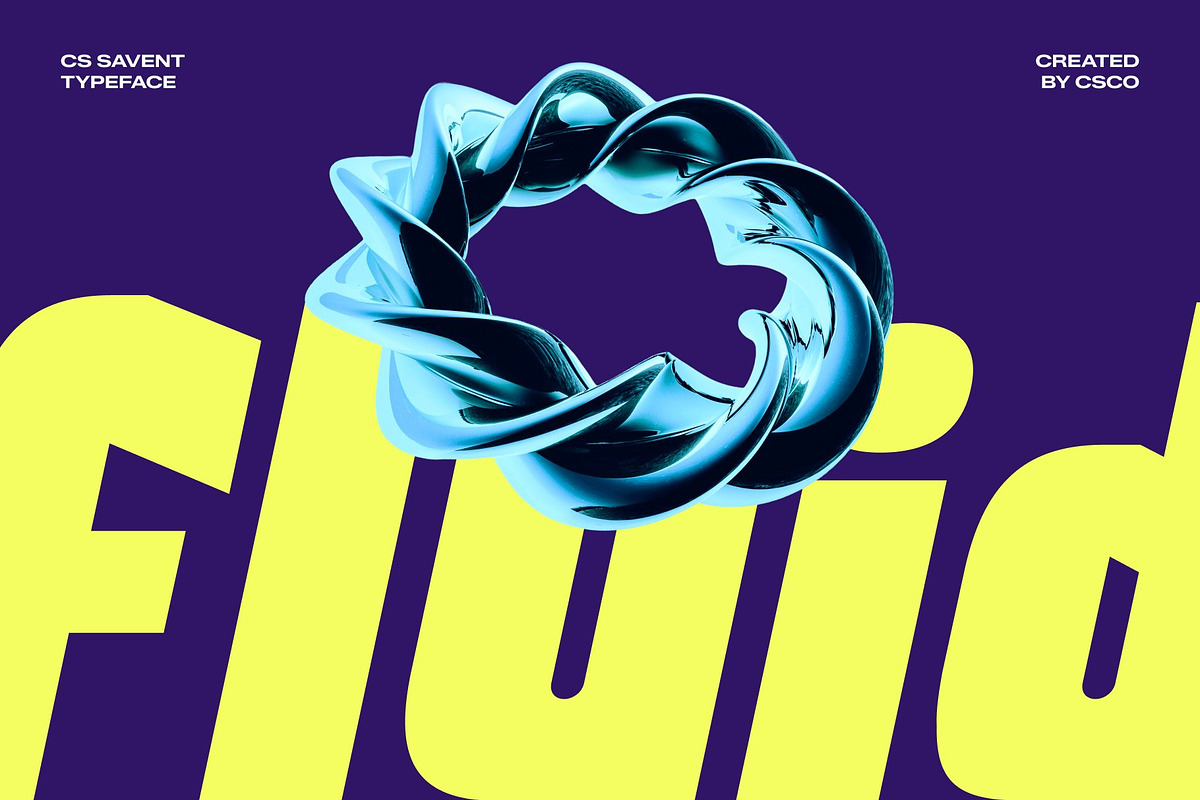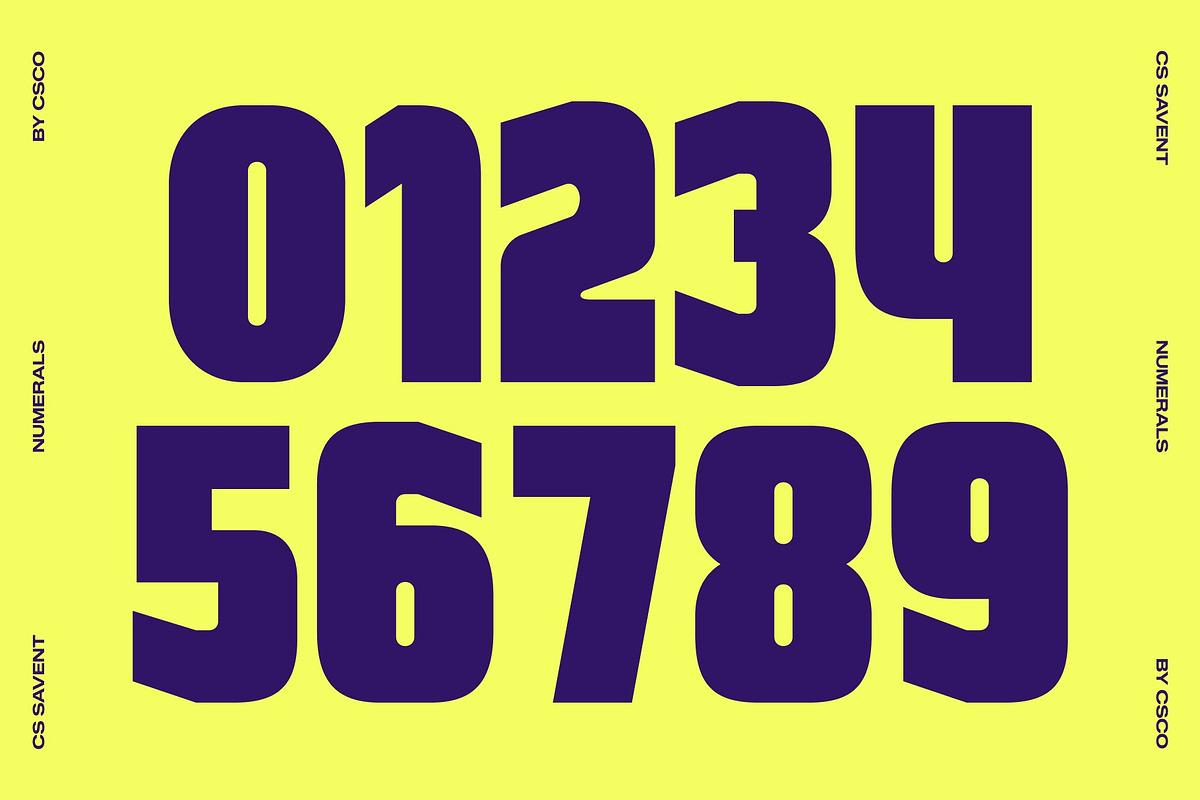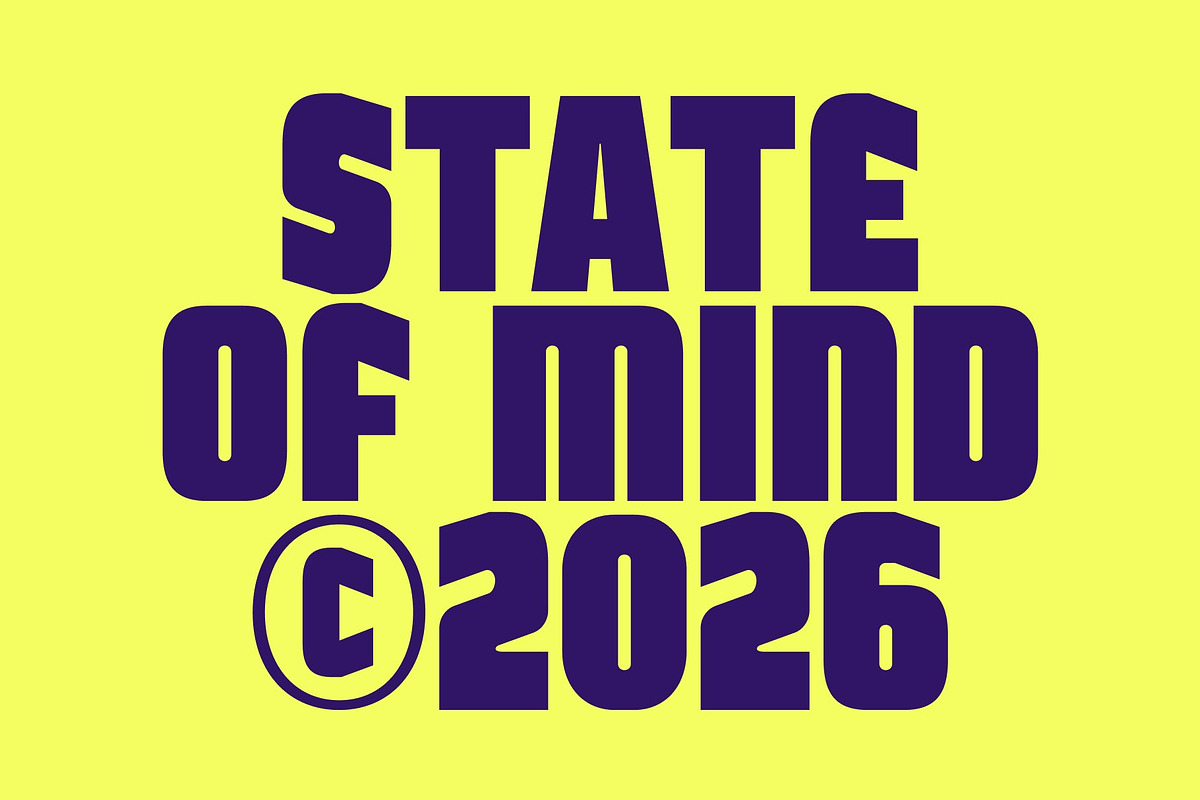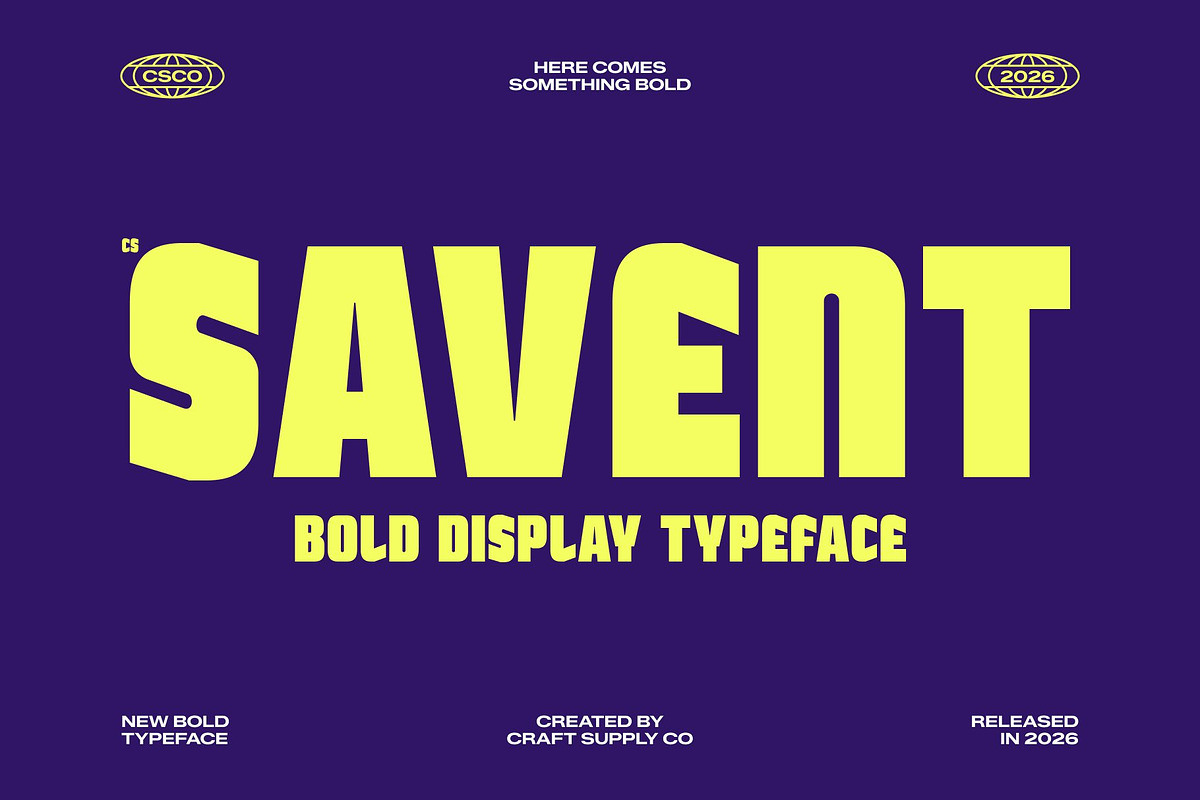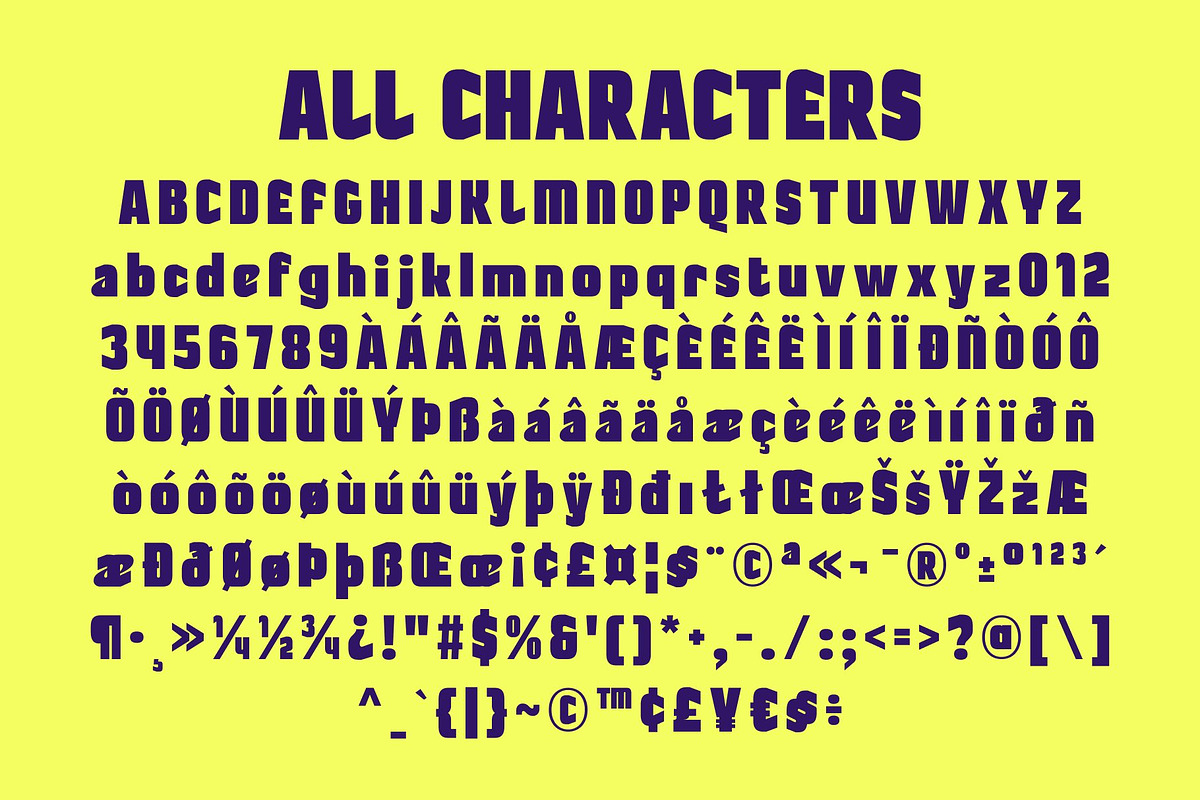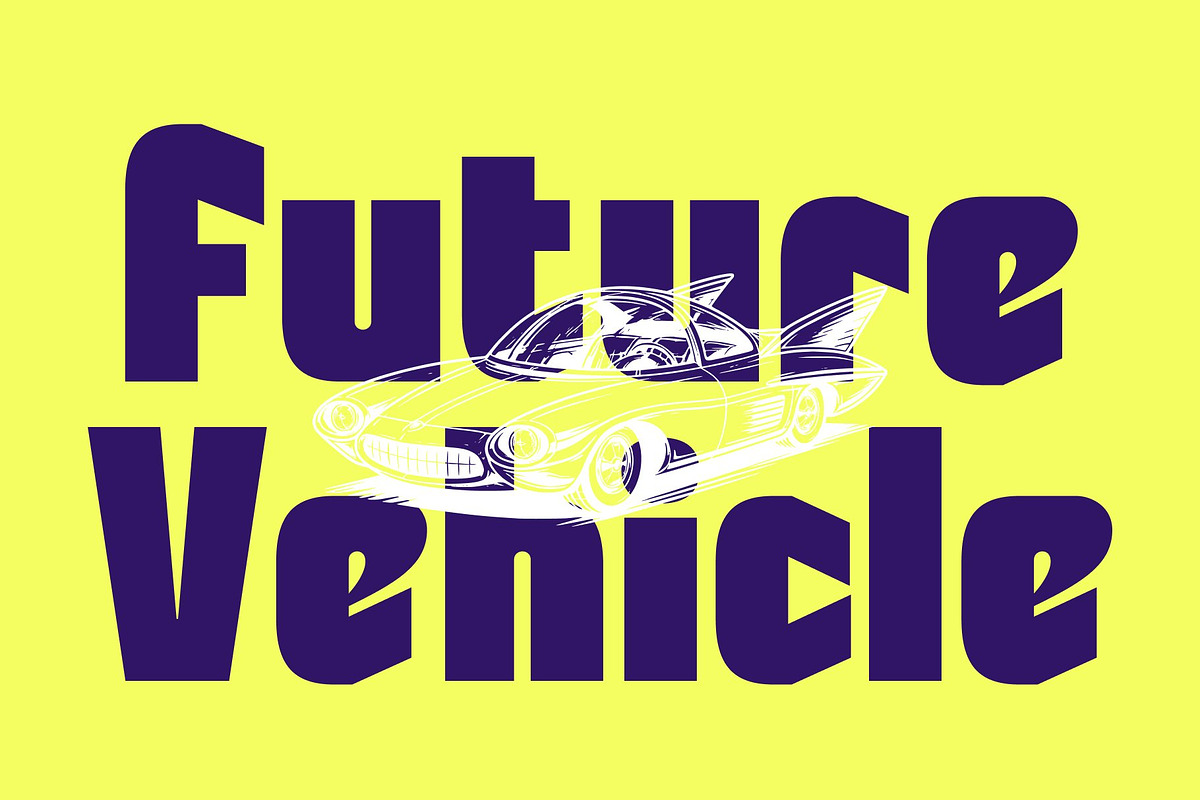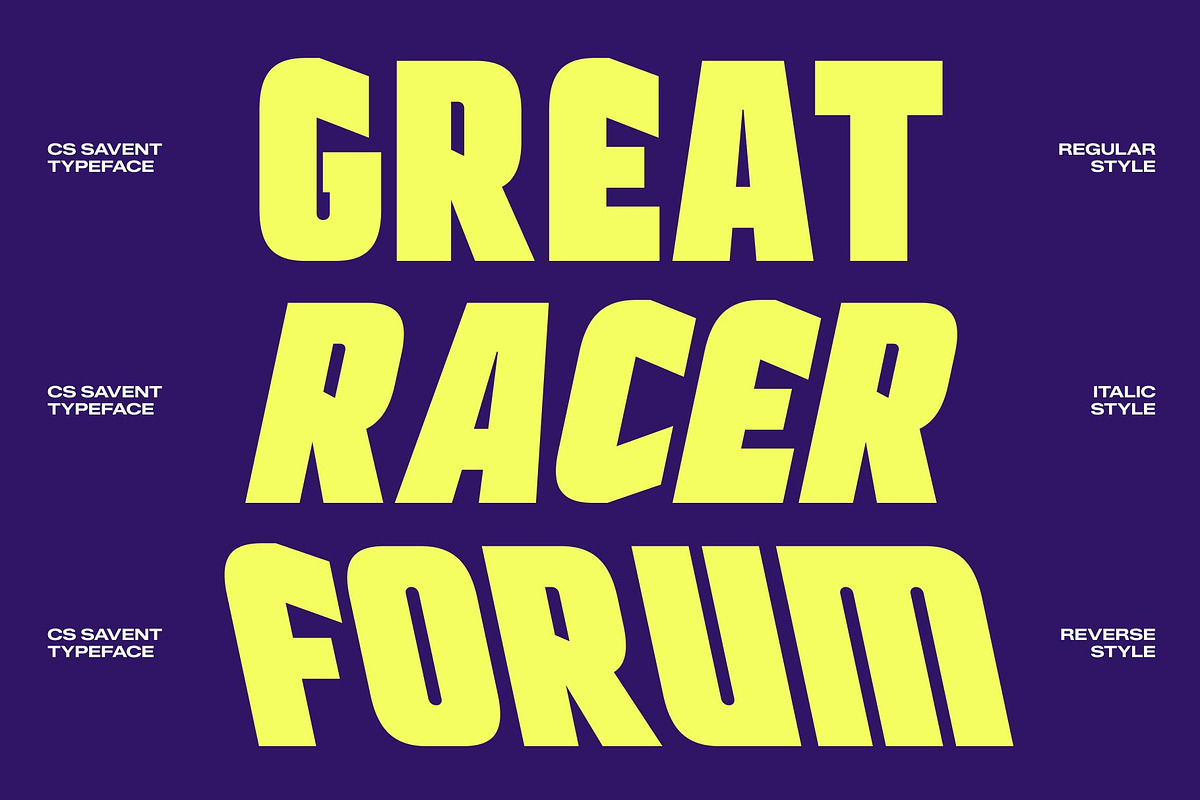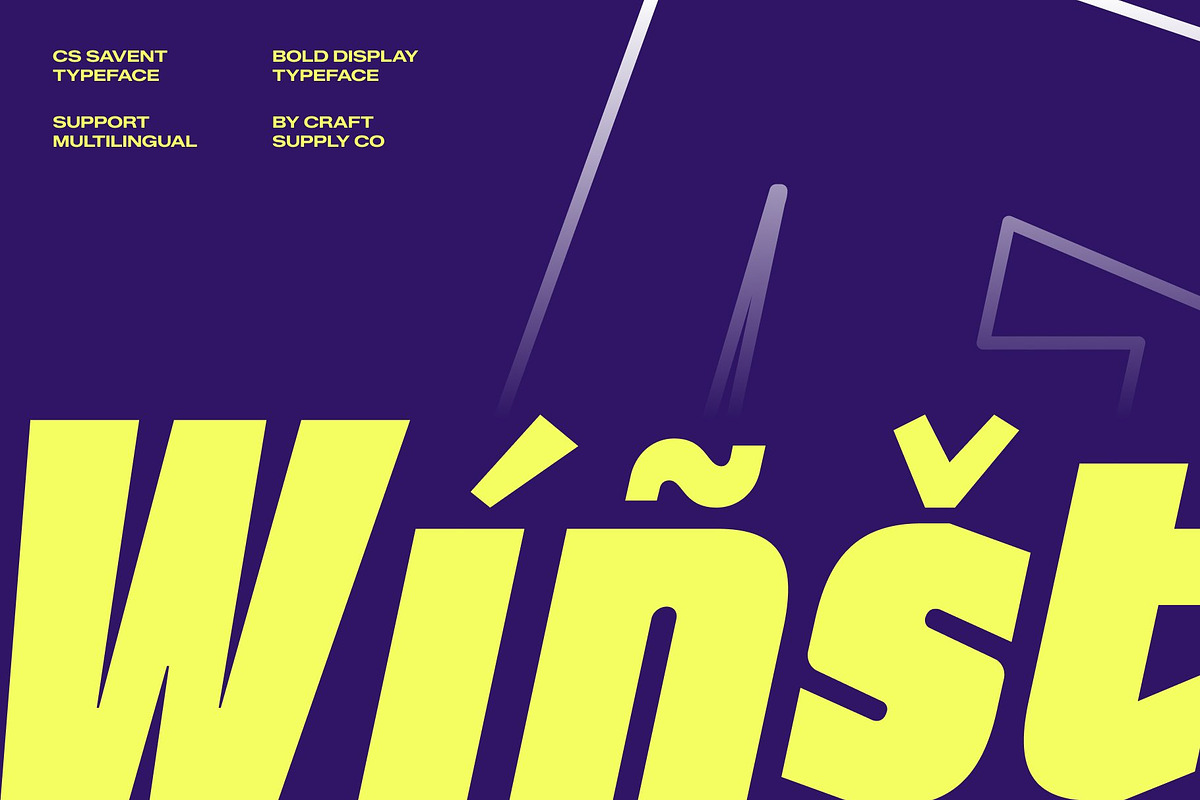
CS Savent – Bold Sans Serif
CS Savent – Bold Sans Serif with Strong Contemporary Presence
Bold Sans Serif with Modern Confidence This is a bold sans serif font designed to deliver strength, clarity, and contemporary style. Featuring thick strokes, solid construction, and powerful proportions, this typeface creates an impactful visual presence that feels modern, energetic, and highly distinctive. It is crafted for designers who want typography that commands attention while maintaining a fresh and creative character.
Strong Shapes with Powerful Impact The defining feature of this font lies in its bold, thick letterforms that create a confident and commanding appearance. Its strong shapes provide excellent visibility and readability, making every headline and title stand out with authority. The robust structure gives the font a sense of stability while preserving a dynamic and expressive personality.
Contemporary Style with Unconventional Energy This font combines modern sans serif simplicity with a lively and unconventional spirit. Its bold aesthetic brings energy and character to layouts, making it ideal for projects that require both professionalism and creative flair. The result is a typeface that feels fresh, memorable, and visually engaging.
Perfect for Headlines, Posters, and Branding From striking headlines and promotional posters to branding systems and creative campaigns, this font offers a versatile typographic solution. Its combination of thick forms, contemporary design, and lively character ensures your designs feel bold, distinctive, and visually powerful.
CS Savent Regular
CS Savent Italic
CS Savent Reverse Italic